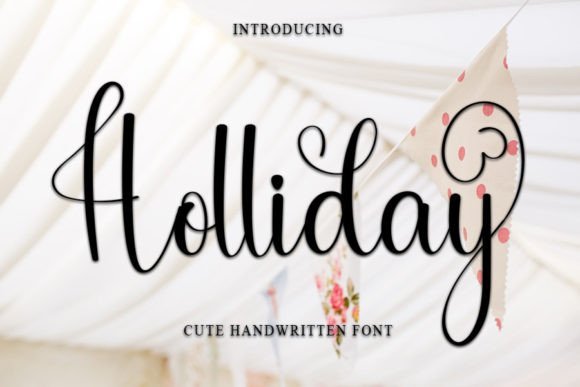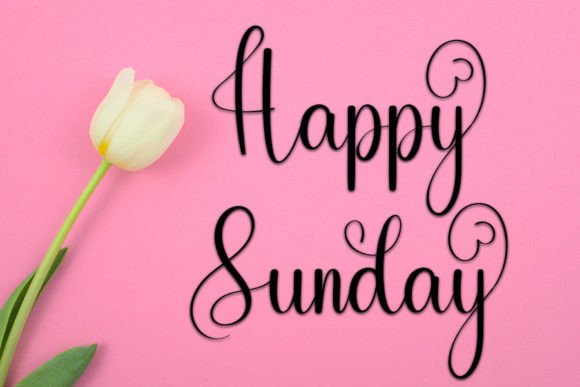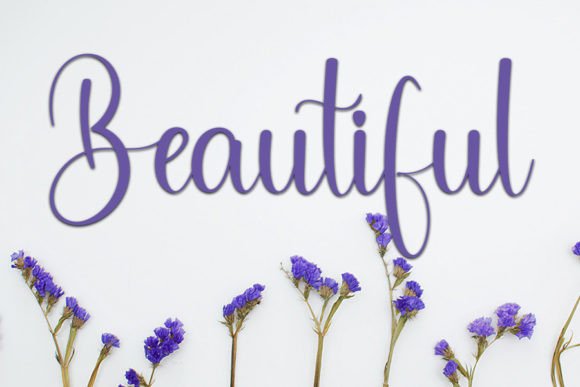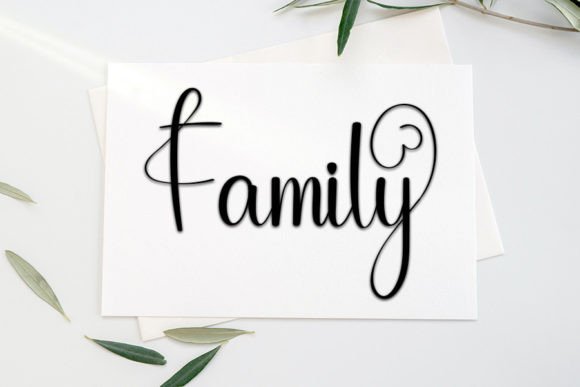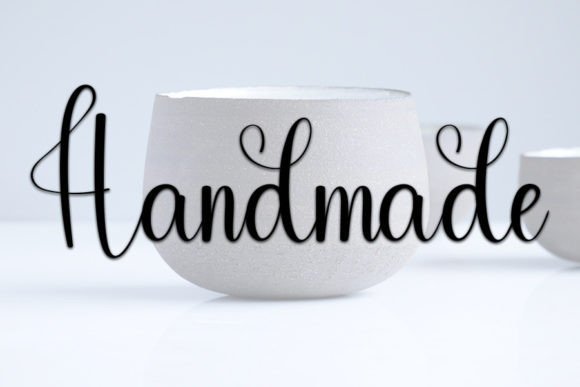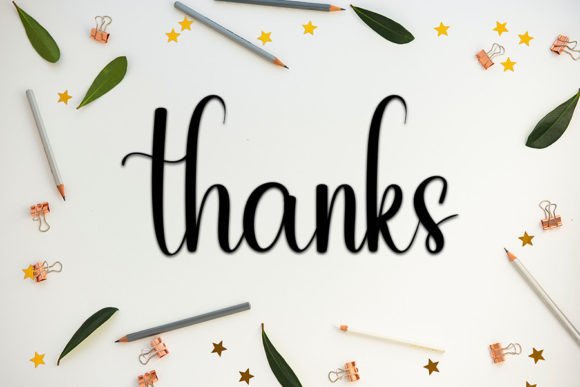
Discover the Timeless Elegance of Holliday Font
Have you ever been working on a design project and suddenly found yourself captivated by the perfect font? That’s exactly what happens when you stumble upon the Holliday Font. Its unique blend of elegance and sophistication can instantly elevate your work from ordinary to extraordinary.
As a beautiful handwritten font, Holliday Font is perfect for adding a touch of personality to your favorite projects. Whether you’re creating a wedding invitation, a branding campaign, or a social media graphic, Holliday Font is sure to leave a lasting impression. Its timeless style makes it a valuable asset for designers who want to create designs that stand the test of time.
Holliday Font Key Features
- Unique Characteristics: Elegant script font with a classic, handwritten feel and subtle flair, ideal for invitations, greeting cards, and other special occasions
- Font Style: Script, Casual
Holiday Font Review
I recently had the chance to work with the Holiday Font, and I must say it’s a mixed bag. Here are my honest thoughts:
- The font’s playful, festive feel is perfect for holiday-themed projects, making it a great choice for Christmas cards, invitations, and other seasonal designs.
- The font is highly customizable, allowing you to adjust the spacing, color, and size to fit your design needs.
- The font is well-suited for use in both digital and print projects, ensuring your design will look great regardless of the medium.
- The font’s versatility is also its weakness – it can feel overly generic and lack a distinct personality, making it harder to stand out in a crowded design landscape.
- The font may not be the best choice for projects that require a more serious or professional tone, as its playful feel can come across as unprofessional.
Overall, I think the Holiday Font is a solid choice for holiday-themed projects, but it may not be the best fit for more serious or professional designs. With a little creativity and customization, you can make the most of this festive font and create some truly eye-catching designs.
Tips for Getting the Most Out of Holiday Font
Use the Holiday Font to add a festive touch to your designs, especially during the holiday season. Experiment with different font sizes, colors, and effects to create visually appealing designs. You can also pair the Holiday Font with other fonts to create a unique and eye-catching look.
The Holiday Font is commonly used for creating invitations, greeting cards, posters, and other holiday-themed designs. It’s also used for adding a festive touch to social media posts, email headers, and other digital content.